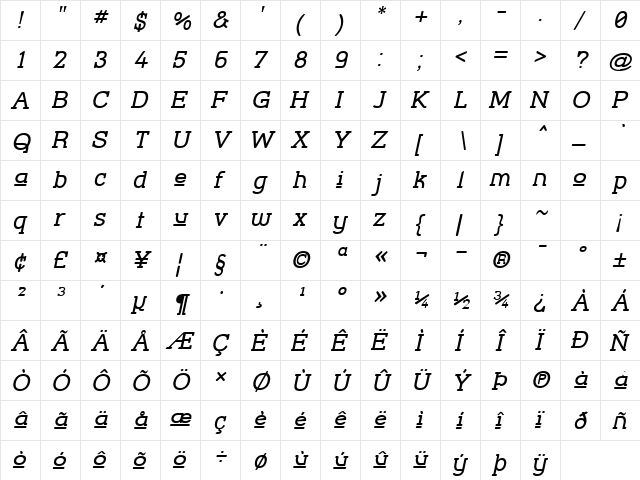
Street Corner Slab Upper Obl Regular
Design Context for Street Corner Slab Upper Obl Typeface
Street Corner Slab Upper Obl combines the readability of serif typography with the visual weight of a slab construction, resulting in a typeface that feels both authoritative and approachable.
Works well in editorial design, news publishing, impactful branding, and poster typography.
Pro Tip: Try Street Corner Slab Upper Obl set tight in headlines for a classic editorial feel. Its slab serifs create strong horizontal rhythm that anchors a page layout.